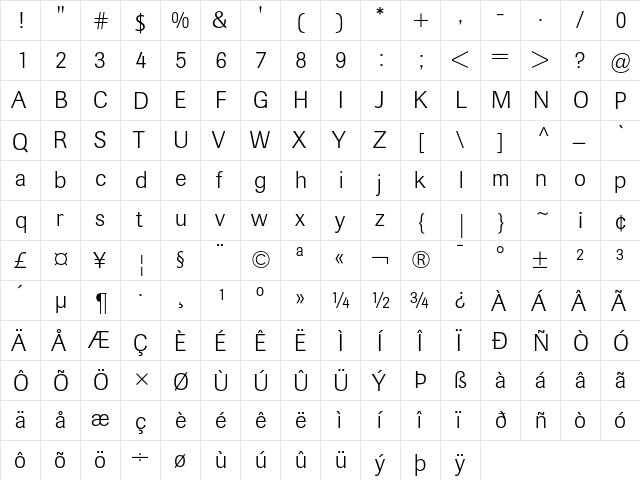
Imago Regular
Design Context for Imago Typeface
Imago takes a measured approach to typography — its balanced proportions and neutral character make it a reliable workhorse for both digital and print work.
Pro Tip: Pair Imago with a font of contrasting weight or personality to build a more expressive typographic hierarchy.